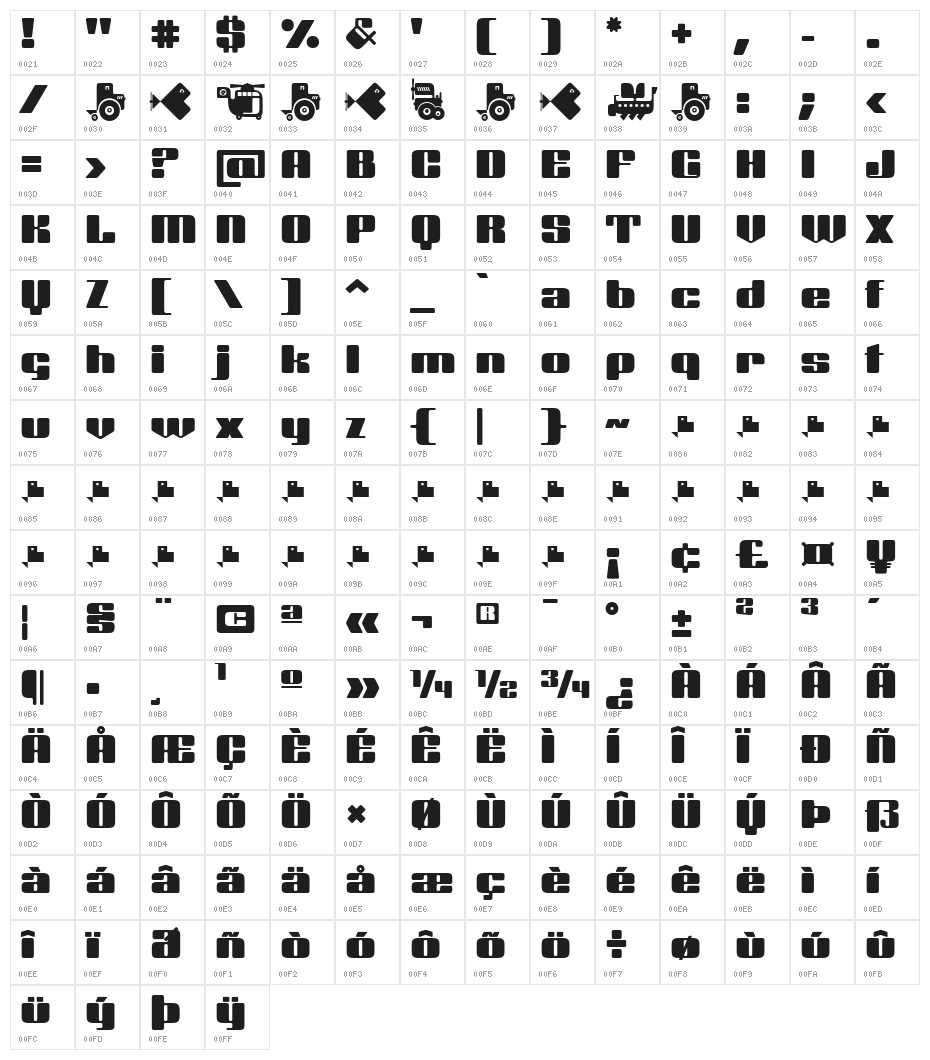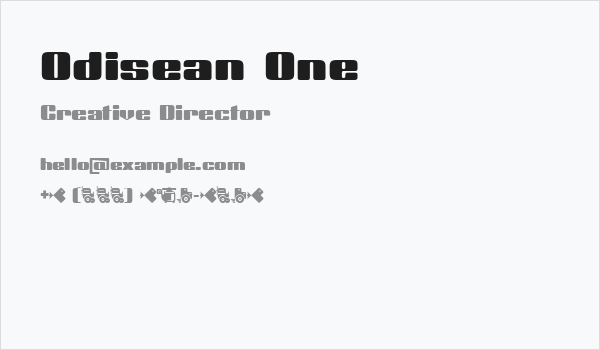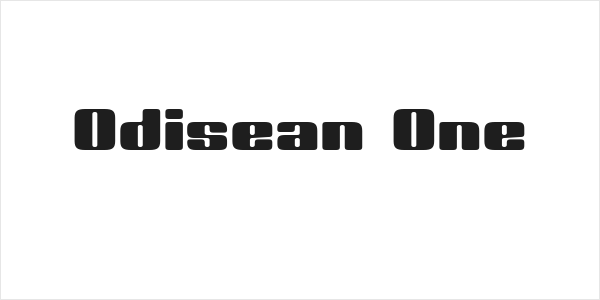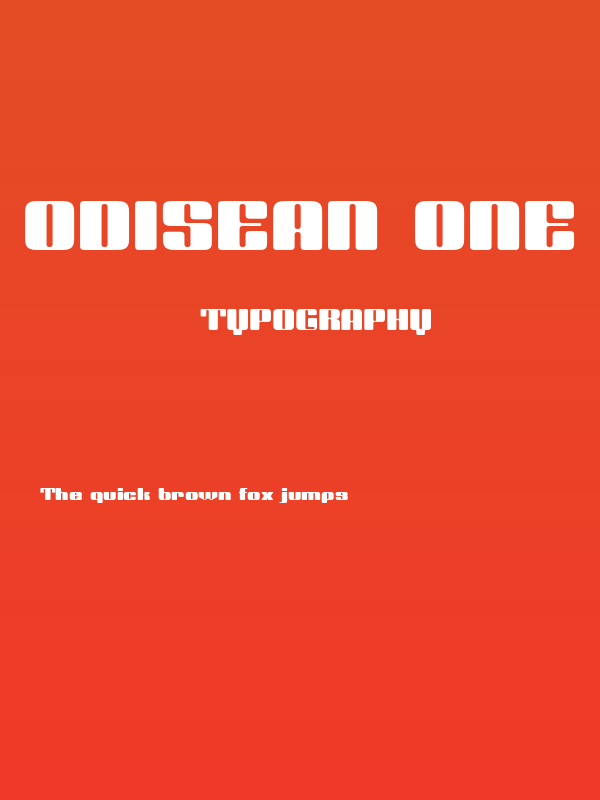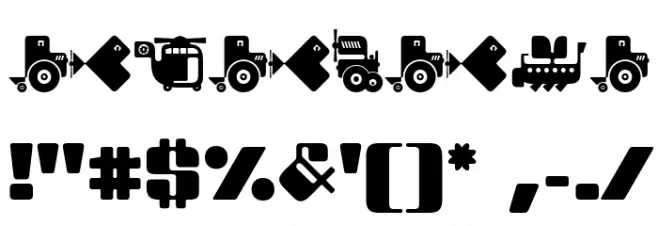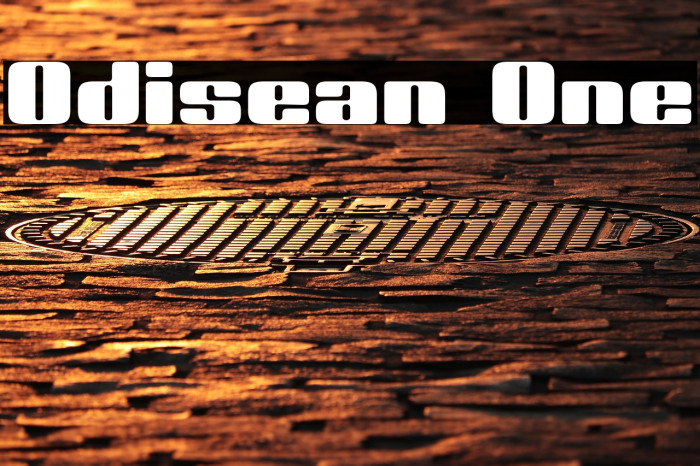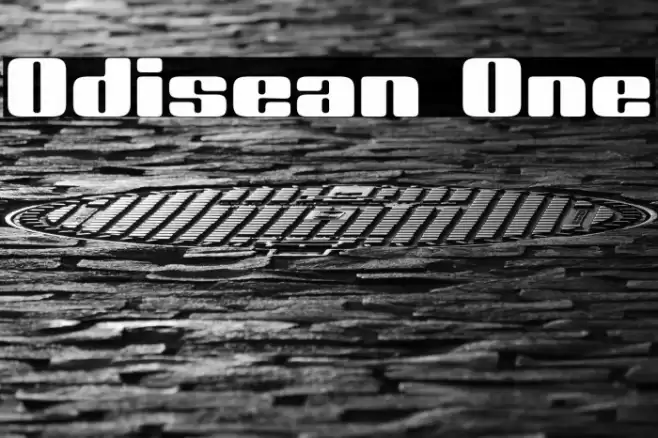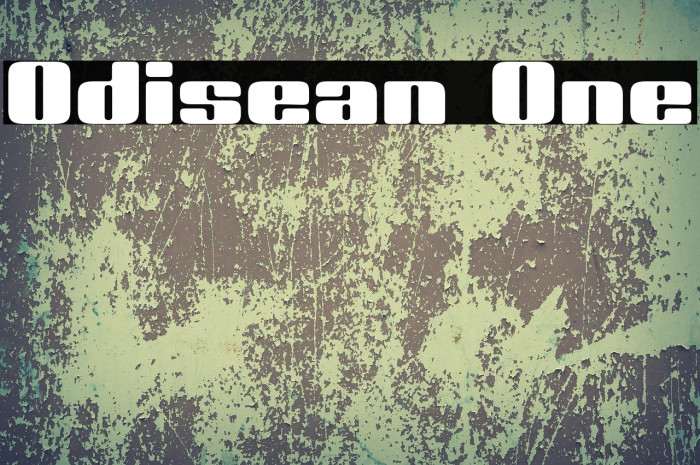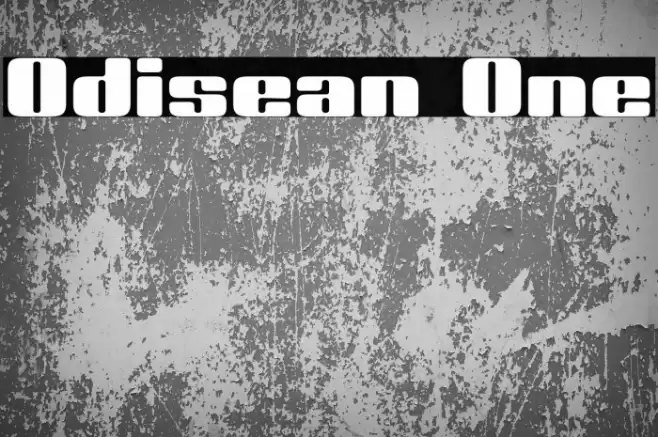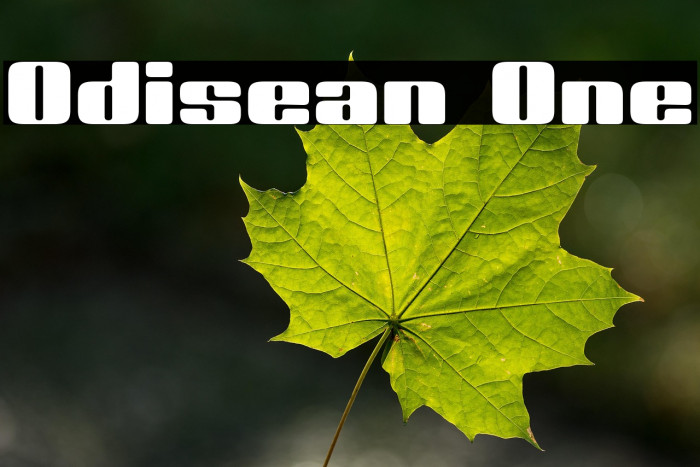
Odisean One Font
The Odisean One is designed for large sizes with retro style, including alternative lettering and retro transportation icons. Odisean One will transport you to a bygone era with its retro charm, offering you alternative lyrics that evoke the aesthetic of
| समग्र शैली | Modern, Industrial |
| उपयोग का मामला | Headlines, Logos, Posters |
| सुझाए गए प्रोजेक्ट | Ideal for branding, posters, and any design that requires a bold, industrial aesthetic. The playful special characters make it suitable for children's materials or creative projects. |